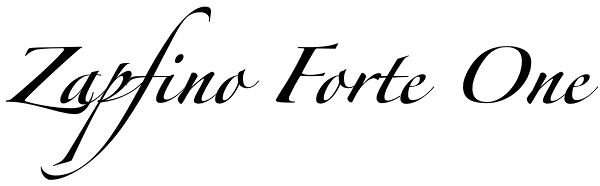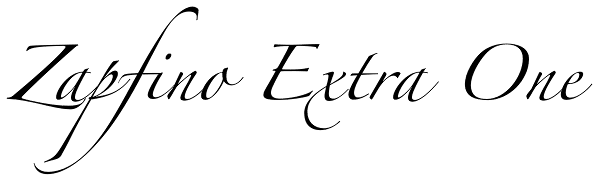
Zapfino Extra
Today's digital font technology has allowed renowned font designer and calligrapher Hermann Zapf to realize a dream he first had more than fifty years ago: to create a typeface that would come very close to the freedom and liveliness of beautiful...